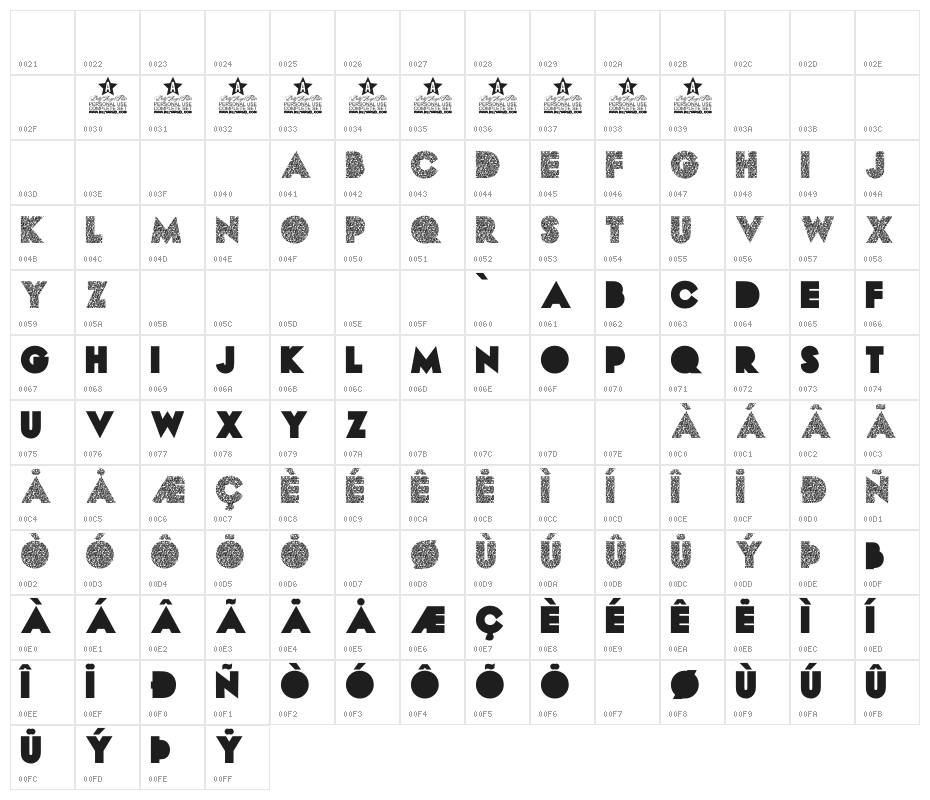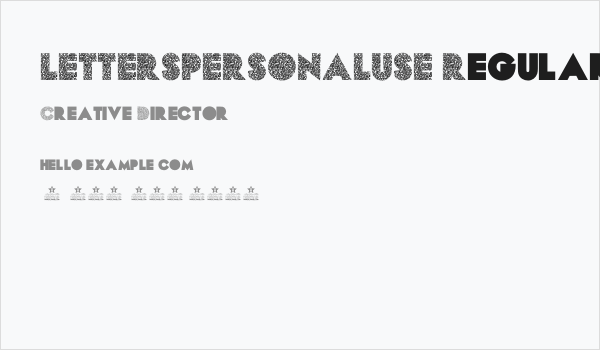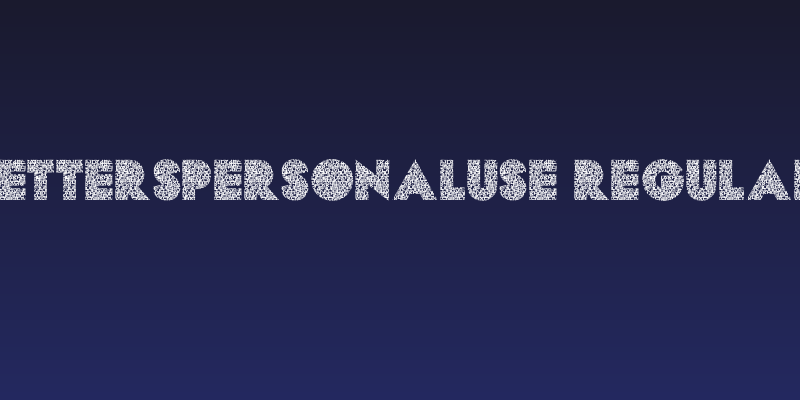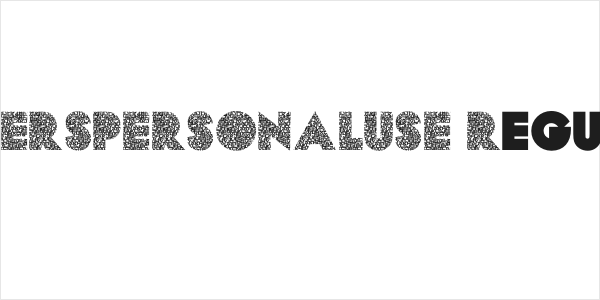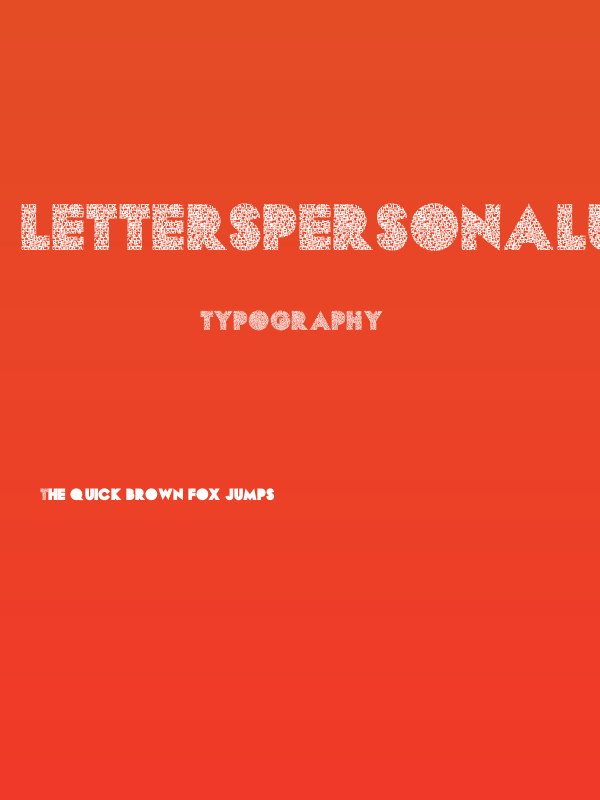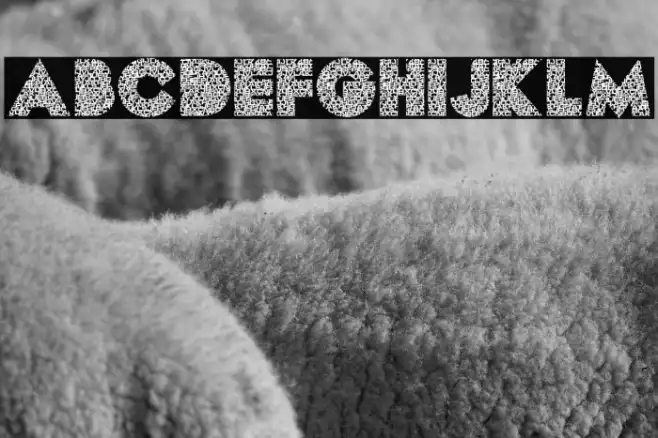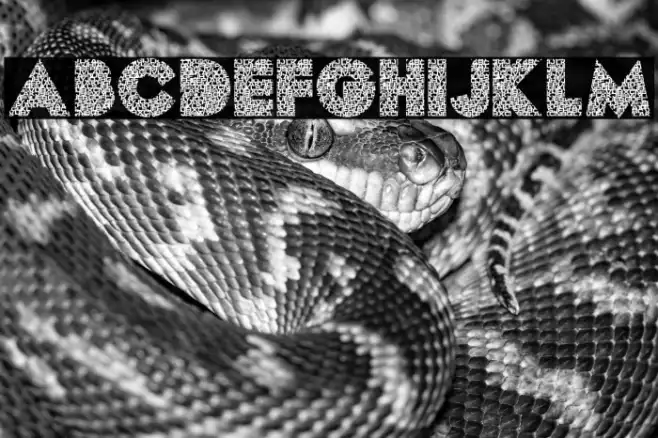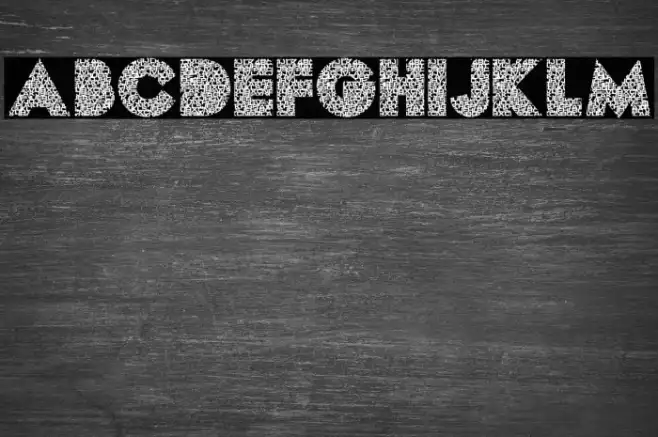
LETTERSPERSONALUSE-Regular Font
LETTERSPERSONALUSE-Regular Description
This font features two distinct styles. The first style is a decorative, textured pattern that fills each letter, creating a unique and eye-catching appearance. The letters are bold and have a playful, artistic flair, making them stand out in any design. The second style is a solid, bold geometric design with sharp angles and clean lines, offering a modern and striking look. Both styles are uppercase, emphasizing their bold and impactful nature. These characteristics make the font versatile for various creative projects.
| Proposed Projects | Ideal for posters, logos, and creative branding projects where a bold statement is needed. |